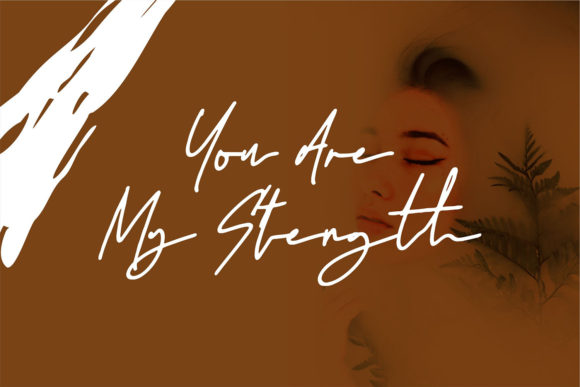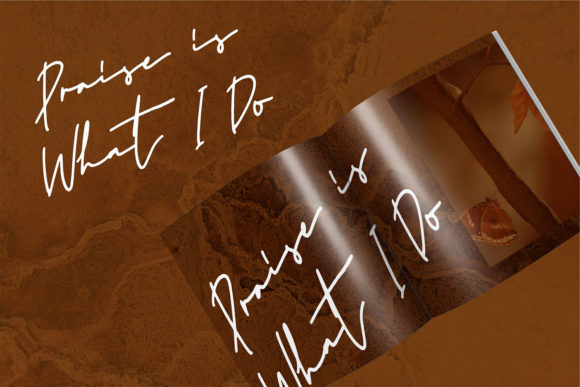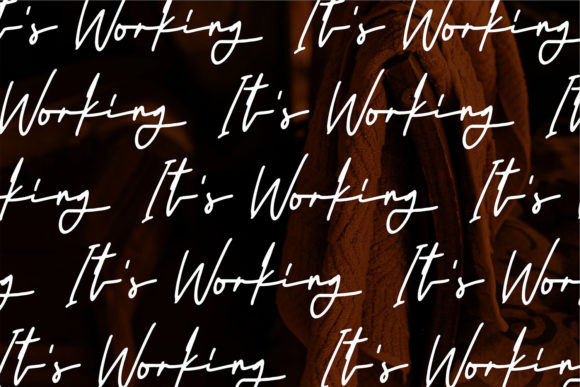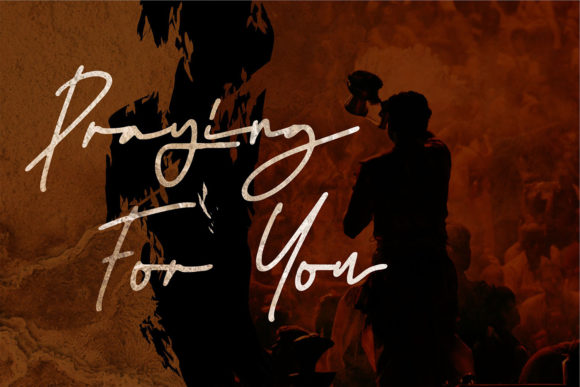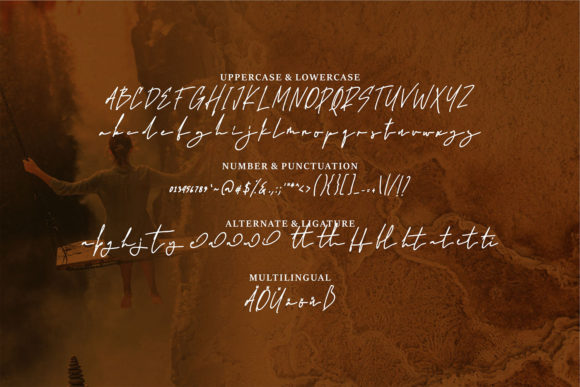
Introducing Breaket Font: Elevate Your Designs with Elegance and Class
In the world of typography, fonts play a crucial role in conveying the tone and aesthetic of a design. For designers and crafters seeking to add a touch of sophistication and style to their projects, Breaket Font is an exceptional choice. This cool and stylish handwritten font is specifically crafted to exude elegance and class, making it perfect for those who need a beautiful and refreshing look to their designs.
What Makes Breaket Font Stand Out?
Breaket Font is not just another ordinary font; it’s a carefully crafted typeface that boasts a unique blend of elegance and modernity. Its handwritten style gives it a personal and approachable feel, making it suitable for a wide range of design applications, from luxury branding to wedding stationery, and from fashion magazines to packaging designs.
Key Features of Breaket Font
- Elegant and Classy: Breaket Font is designed to add a touch of sophistication to any design. Its flowing lines and beautiful curves make it perfect for projects that require a high-end look.
- Handwritten Style: The font’s handwritten style gives it a personal and unique feel, making it stand out from more traditional and generic fonts.
- Versatile: Breaket Font is incredibly versatile and can be used for a variety of design projects, including branding, advertising, packaging, and more.
- Easy to Read: Despite its elegant and cursive nature, Breaket Font remains highly legible, making it suitable for both headings and body text.
Who Can Benefit from Breaket Font?
Breaket Font is an excellent choice for a wide range of designers and crafters, including:
- Graphic Designers: Looking for a stylish and elegant font to elevate their branding and advertising projects.
- Stationery Designers: Creating beautiful wedding invitations, greeting cards, and other stationery items.
- Fashion Designers: Needing a sophisticated font for their fashion branding, magazines, and packaging.
- Digital Artists: Seeking a unique and stylish font for their digital art and illustrations.
How to Use Breaket Font Effectively
To make the most of Breaket Font, consider the following tips:
- Pair it with Neutrals: Breaket Font pairs beautifully with neutral colors and simple backgrounds, allowing it to take center stage.
- Experiment with Sizes: Play around with different font sizes to create visual hierarchy and add emphasis to key elements.
- Add Decorations: Consider adding subtle decorations or textures to enhance the font’s elegance and sophistication.
Breaket Font is a stunning handwritten font that can elevate any design with its elegance and class. Whether you’re a designer, crafter, or artist, this versatile font is sure to become a valuable addition to your typography arsenal. With its unique blend of style, sophistication, and readability, Breaket Font is the perfect choice for anyone looking to add a touch of luxury to their designs.